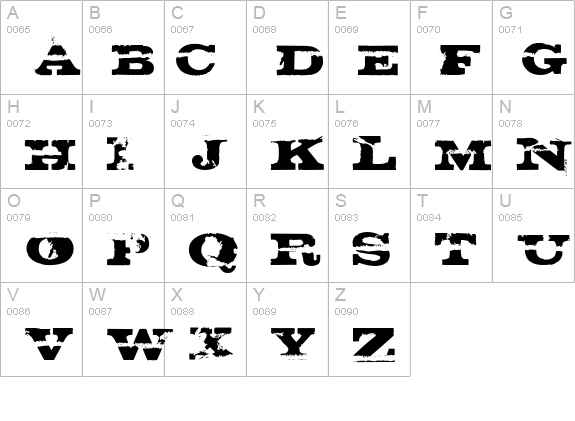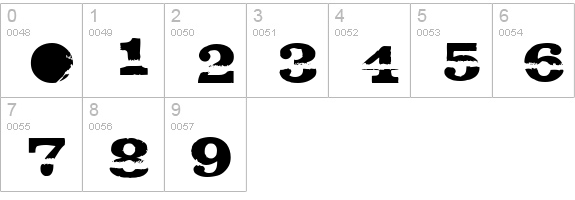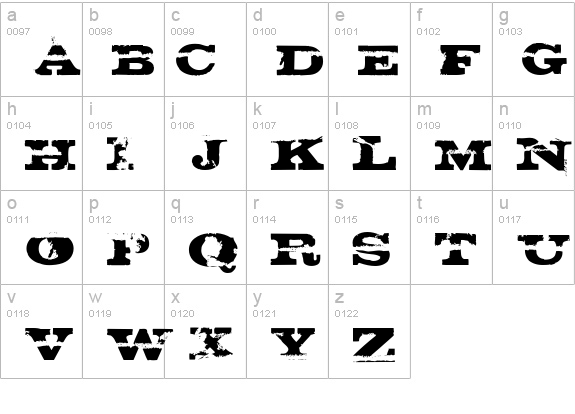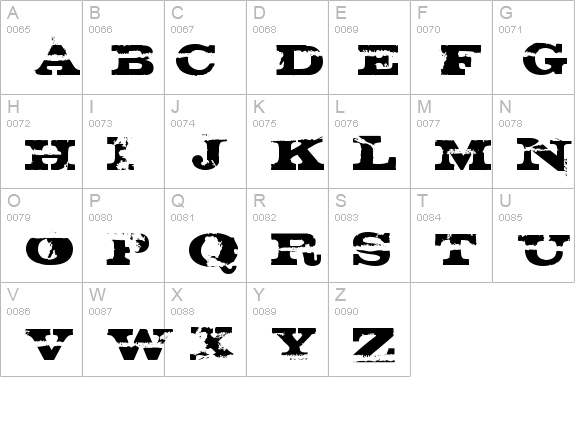
gatecrasher texan Font Details
Gatecrasher Texan font is a bold and eye-catching typeface that exudes a sense of rugged charm and Texan spirit. With its strong, solid lines and distinctive Western-style appearance, this font is perfect for adding a touch of boldness and personality to your designs. Whether you're working on a poster, logo, or branding project, Gatecrasher Texan font will make a statement and leave a lasting impression. The best part? Gatecrasher Texan font is completely free to download at FontsMarket.com. You can easily access this unique and versatile font to enhance your creative projects without any cost. So why wait? Bring a touch of the Wild West into your designs with Gatecrasher Texan font today!